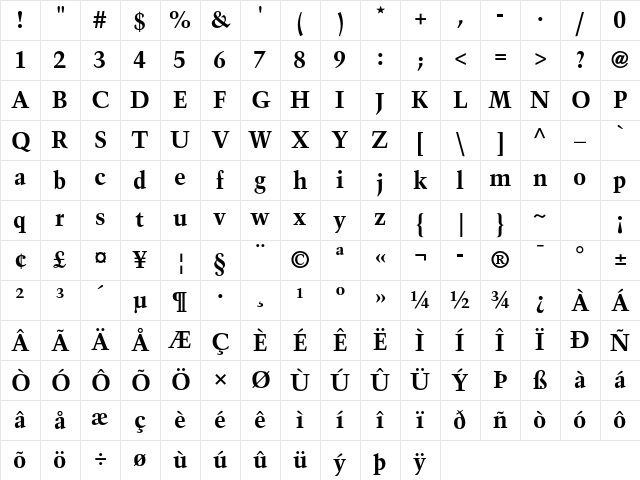
Trump Mediaeval LT Std Bold
Designer: Georg Trump
Complete Trump Mediaeval LT Std Bold glyph index. Displaying only characters natively supported by Trump Mediaeval LT Std Bold font.
Design Context for Trump Mediaeval LT Std
Trump Mediaeval LT Std is a composed and adaptable typeface that performs quietly and consistently across a wide range of design contexts. Its bold stroke weight gives it real presence on the page.